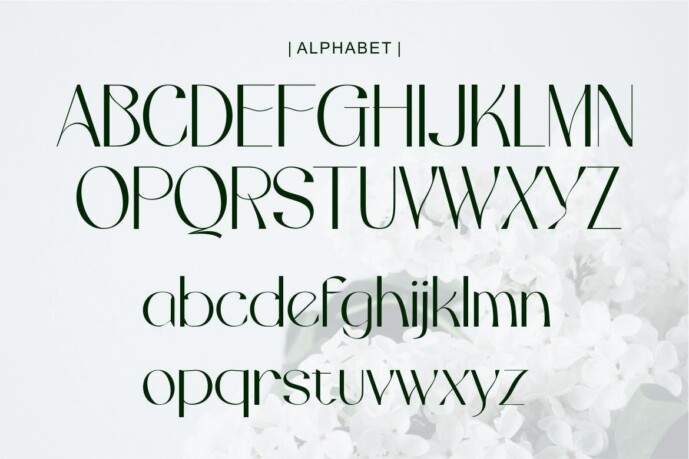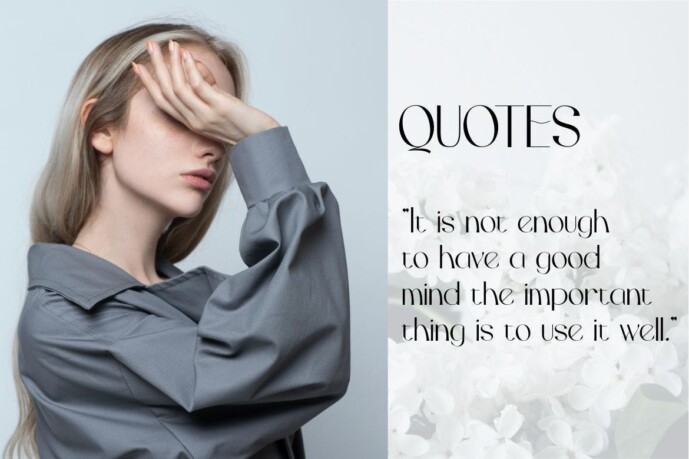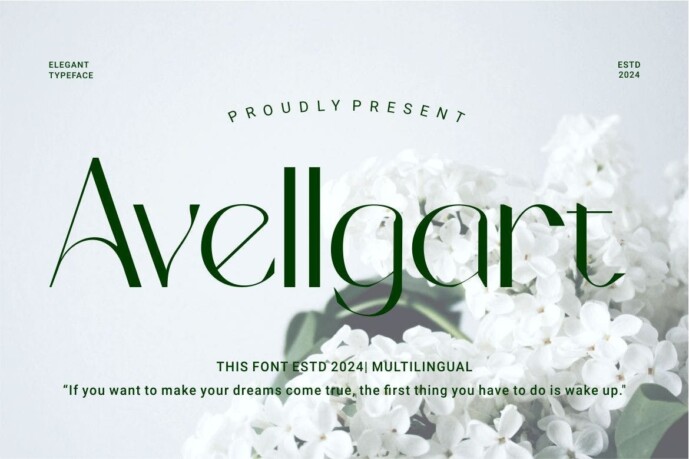
Avellgart Font
Designer: cozzdesign
Avellgart Font – Elegant Typeface Font – Modern Font is a bold and authentic display font. The font is suitable for all branding projects such as Logo, t-shirt printing, esports, etc. It is exceptional in a wide range of contexts